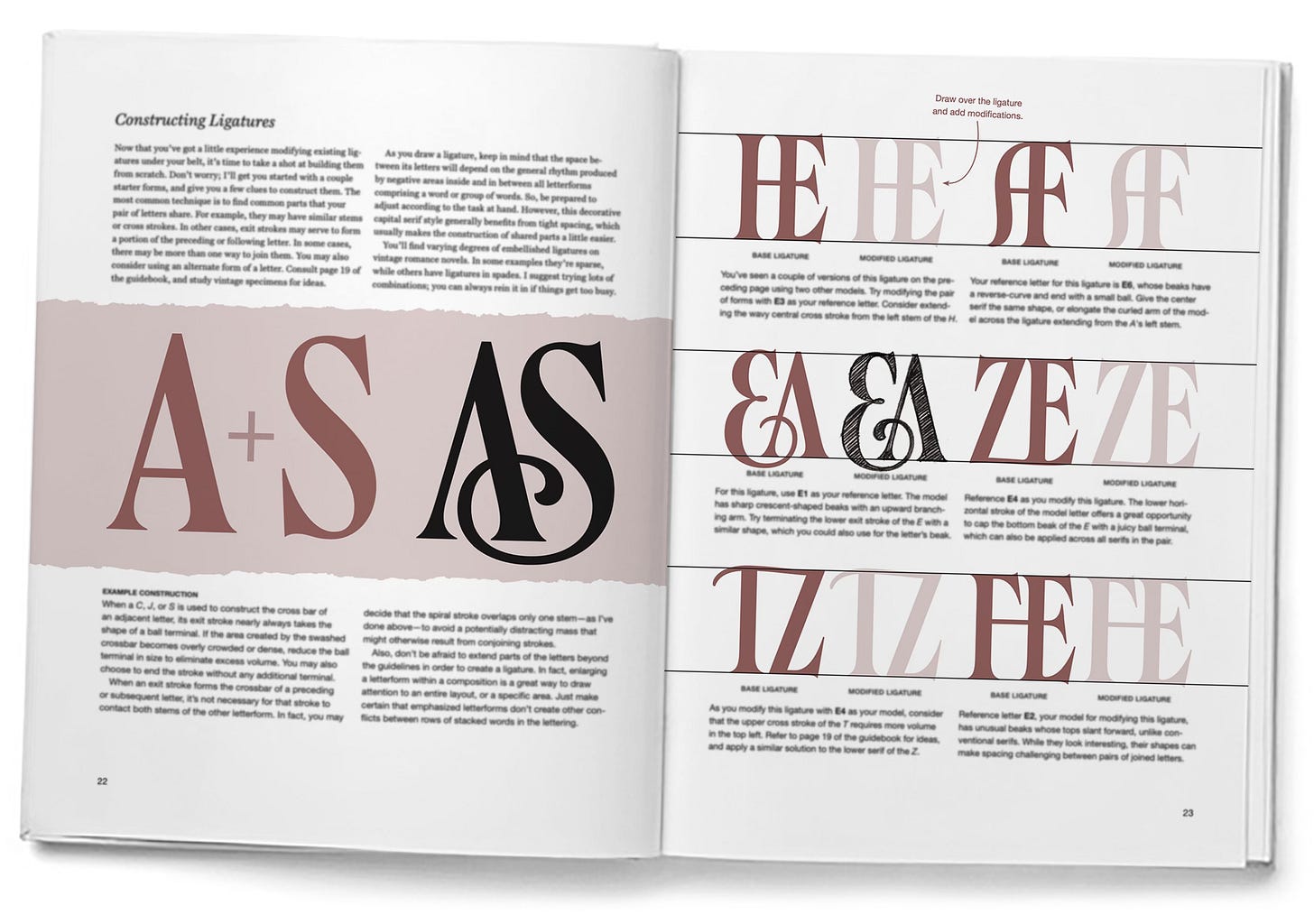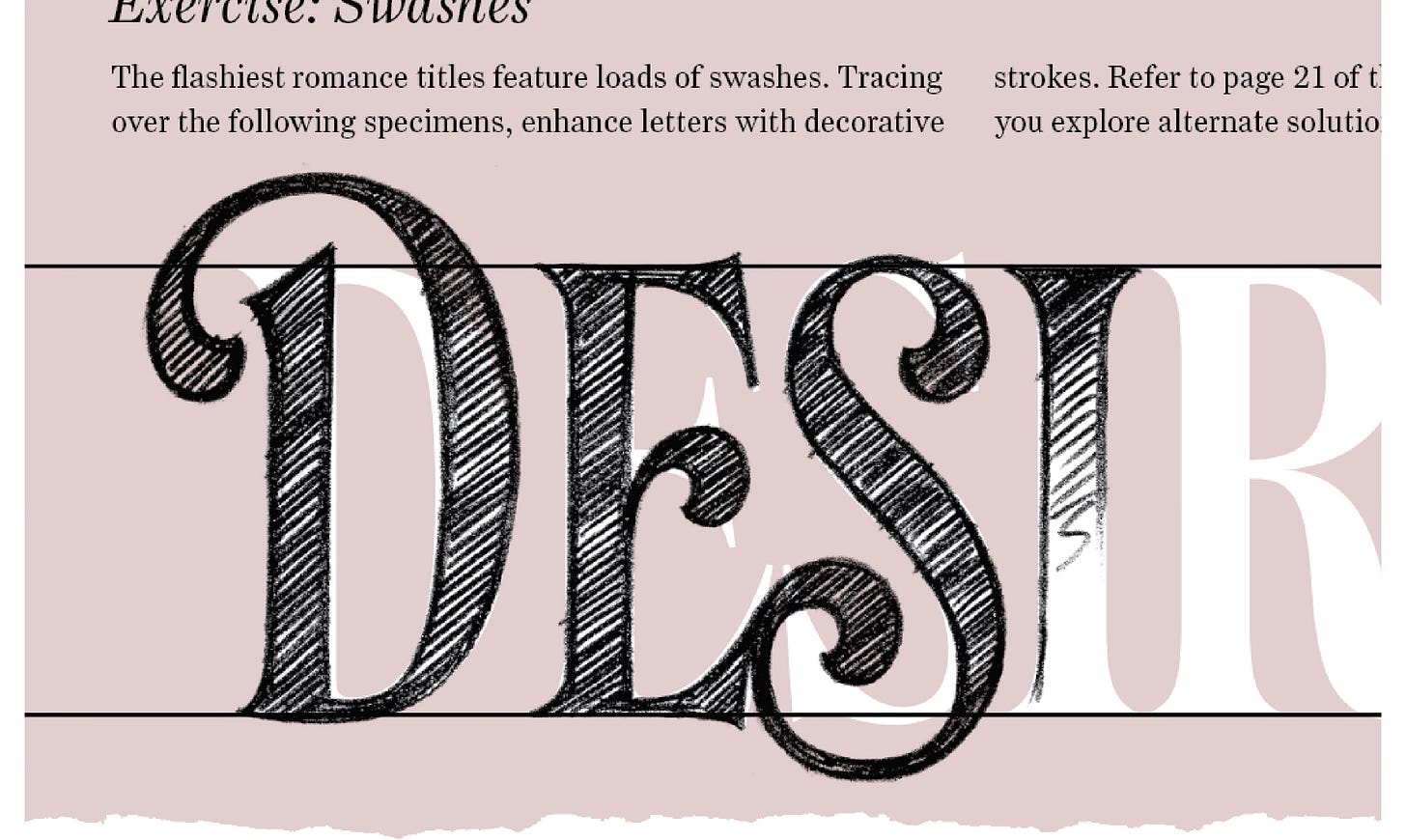
Inside the Lettering Obsessions Workbook
Expand your lettering skills with effective exercises and prompts
Throughout my decades of teaching, I’ve learned that everyone approaches lettering differently. Some letterers thrive on drawing from scratch, while others benefit from having a guided starting point. That’s why the bonus PDF workbook for my upcoming Lettering Obsessions: Romance Novels workshop is jam-packed with a variety of exercises designed to sharpen your skills—no matter your level of experience!
Sharpen your lettering skill set with extra instruction and guided drills
Inside the workbook’s 29 illustrated pages, you’ll explore how to pair decorative caps inspired by vintage paperbacks with complementary letter styles. You’ll also learn how to customize letters to convey specific moods, combine them into striking ligatures, and enhance your lettering with eye-catching ornamental swashes.
One of the many exercises designed to expand your lettering abilities